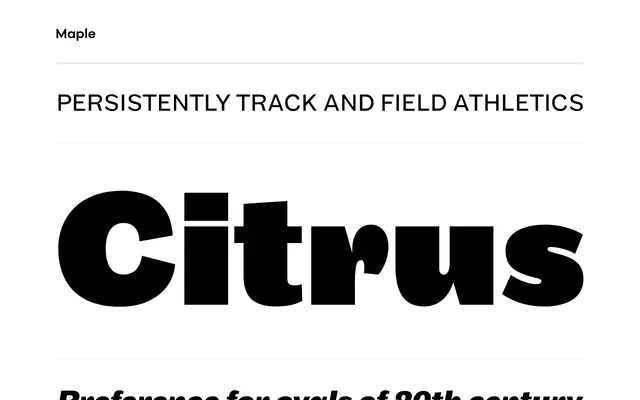
Process Type Foundry · Eric Olson · 2005
A reworking of Eric Olson's own failed Process Grotesque, pulling from Stephenson Blake grotesques to produce something more assured than its 2002 predecessor.
Released in 2005, Maple is Eric Olson's second attempt at interpreting the Stephenson Blake grotesque model after Process Grotesque was retired in 2003 for its stiff lowercase and over-faithful adherence to source material. Four weights with italic companions give the family eight styles in total. The result is a workhorse grotesque with British roots, suited to editorial and text settings where a degree of warmth is wanted.
Maple is a reworking of Process Grotesque, itself derived from Stephenson Blake grotesques, placing it firmly in the British grotesque tradition of the late nineteenth and early twentieth centuries.